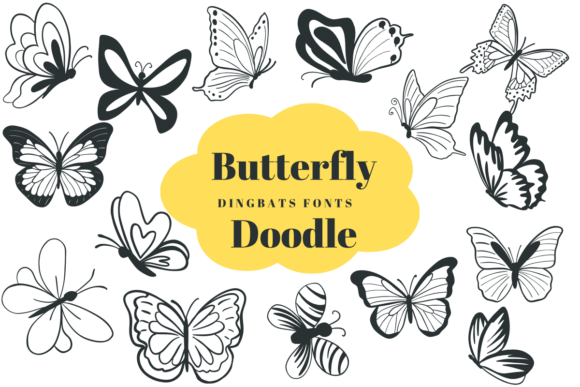
The Butterfly Effect: How Butterfly Doodle Font Can Transform Your Creative Projects
I’ll never forget the time I was working on a wedding invitation project, and my client asked me to add a touch of whimsy to the design. I scoured the internet for the perfect font, but nothing seemed quite right. That’s when I stumbled upon Butterfly Doodle Font, a charming dingbats font with a sketched style that perfectly captured the playful, romantic vibe I was going for.
Butterfly Doodle Font is more than just a pretty face – it’s a versatile tool that can elevate a wide range of creative projects, from wedding invitations and DIY crafts to decorations, logos, and beyond. In this article, we’ll take a closer look at what makes this font so special, and how you can use it to take your designs to the next level.
An Honest Review: What I Love (and What to Watch Out For) 🤔
The Good ✨
- Unique, hand-sketched style that’s perfect for adding a touch of personality to your designs 🎨
- Wide range of glyphs and symbols to choose from, including butterflies, flowers, and more 🌼
- Easy to use and pair with other fonts, thanks to its clean and simple design 📚
- Perfect for a variety of creative projects, from wedding invitations to DIY crafts and decorations 🎉
The Not-So-Good ⚠️
- Limited character set compared to some other fonts, so be sure to check the glyphs before you start your project 📝
- May not be suitable for body text or long-form writing, due to its decorative nature 📄
The Story Behind Butterfly Doodle Font 📚
Butterfly Doodle Font was created by a talented designer who wanted to capture the beauty and wonder of the natural world. Inspired by the delicate patterns and colors of butterflies, the designer set out to create a font that would bring a touch of whimsy and magic to creative projects. With its unique, hand-sketched style and wide range of glyphs and symbols, Butterfly Doodle Font is the perfect tool for anyone looking to add a little extra something to their designs.
Q: Is Butterfly Doodle Font suitable for body text or long-form writing?
A: No, Butterfly Doodle Font is a decorative font, and is best suited for headlines, titles, and short-form text.